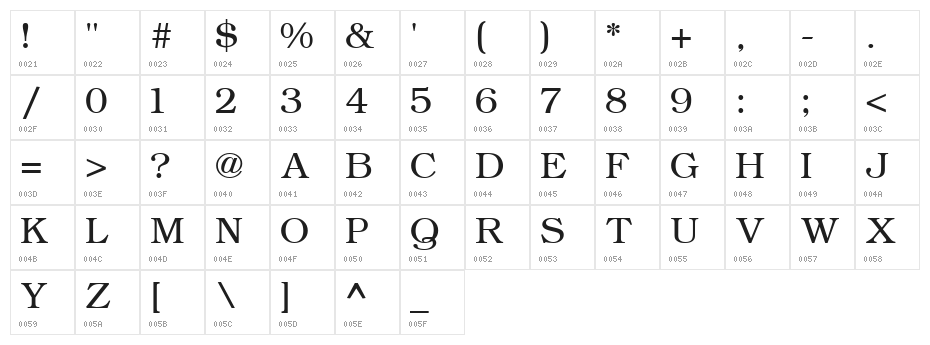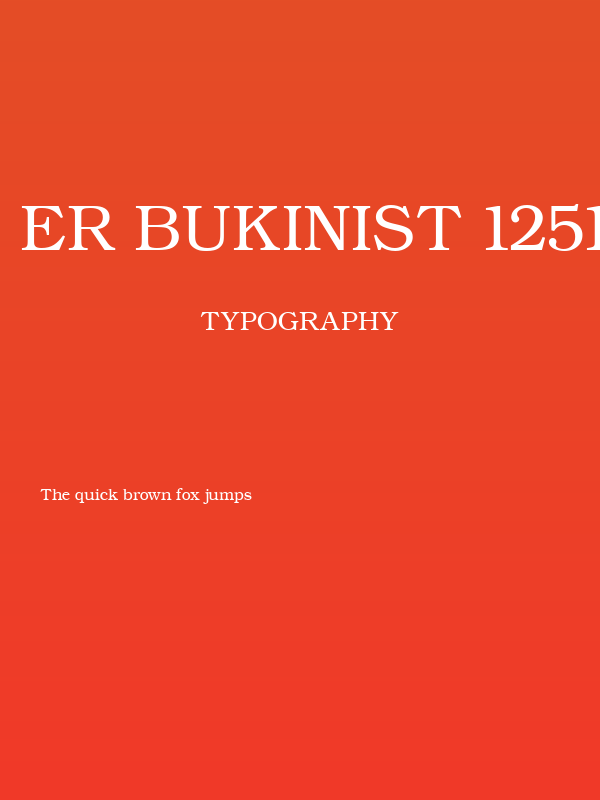
ER Bukinist 1251 Font
ER Bukinist 1251 Description
This font features a classic serif design with a strong presence and elegant curves. The uppercase letters are bold and commanding, while the lowercase letters maintain a graceful and readable form. The numerals are clear and distinct, making them suitable for both display and text settings. Special characters are well-integrated, maintaining the overall aesthetic of the font. The serifs are pronounced, adding a touch of sophistication and tradition. This font is versatile, suitable for a range of applications from editorial design to branding.
| Proposed Projects | Ideal for editorial design, book covers, branding, and formal invitations. |